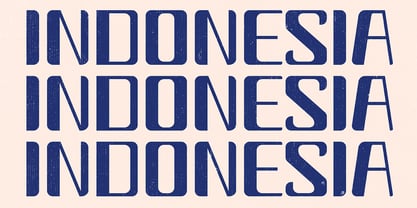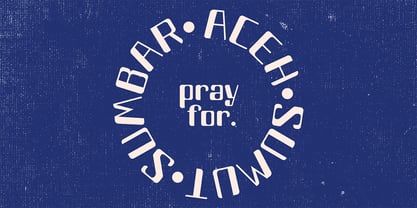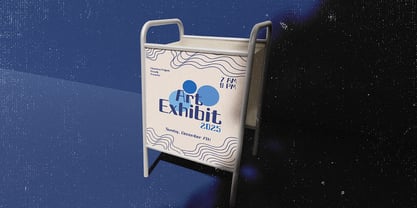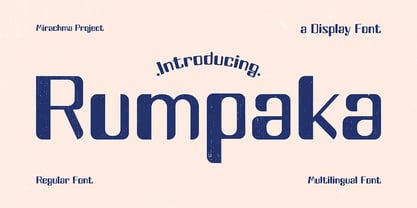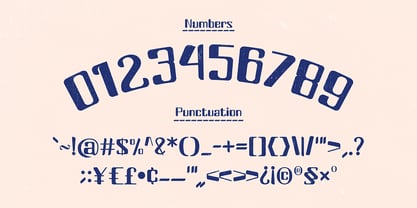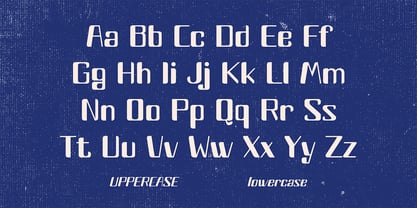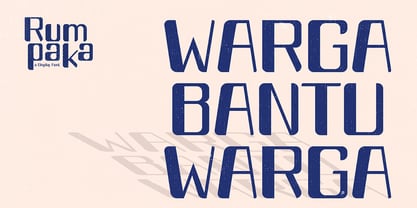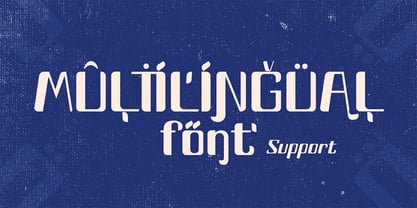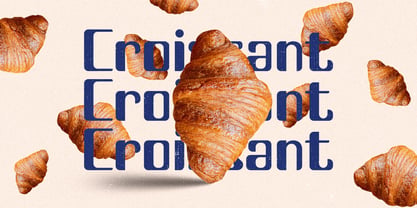
Rumpaka
by Mirachma
The Rumpaka Font Family was designed by Mira Rachma and published by Mirachma. Rumpaka contains 1 styles. More about this family
For your information, Rumpaka is a Sundanese term for song lyrics, similar to “lyrics” in English, and is often found in traditional Sundanese songs. It also has another meaning, namely a literary work that is generally in the form of poetry. For me, fonts are beautiful works of art, like Rumpaka. They serve to beautify, clarify, and build visual beauty in a text or design. I chose this name because the font I created has a traditional concept. I am from the Sundanese tribe, so I chose this name. File Includes: Regular Font | Multilingual Font Support | Uppercase & Lowercase Alphabets | Numerals & Punctuation Note: Mockups & images featured in the preview image designs are for display purposes only, and not included in the download.